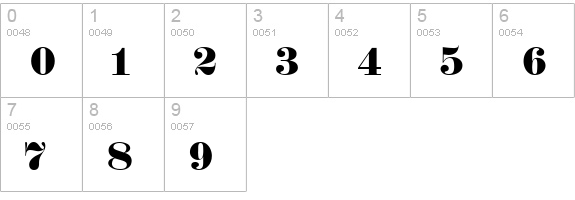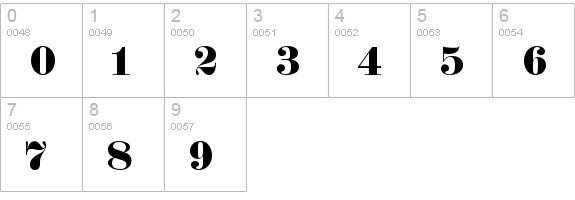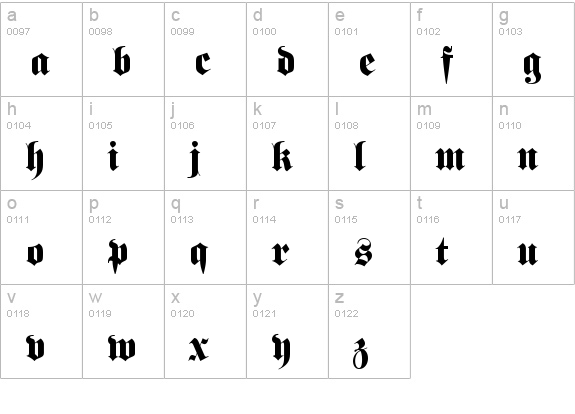
Frankenstein Font Details
Introducing Frankenstein font, a striking and unique typeface that embodies the perfect blend of modern design and vintage charm. This font is bold, edgy, and full of character, making it ideal for a wide range of creative projects. With its sharp angles and intricate details, Frankenstein font is sure to make a statement and capture the attention of any audience. The best part? Frankenstein font is available for free download at FontsMarket.com, where you can easily access this versatile typeface and add a touch of personality to your designs. Whether you're creating posters, logos, branding materials, or any other visual content, Frankenstein font is the perfect choice to elevate your projects to the next level. Download it today and unleash your creativity with this incredible font!